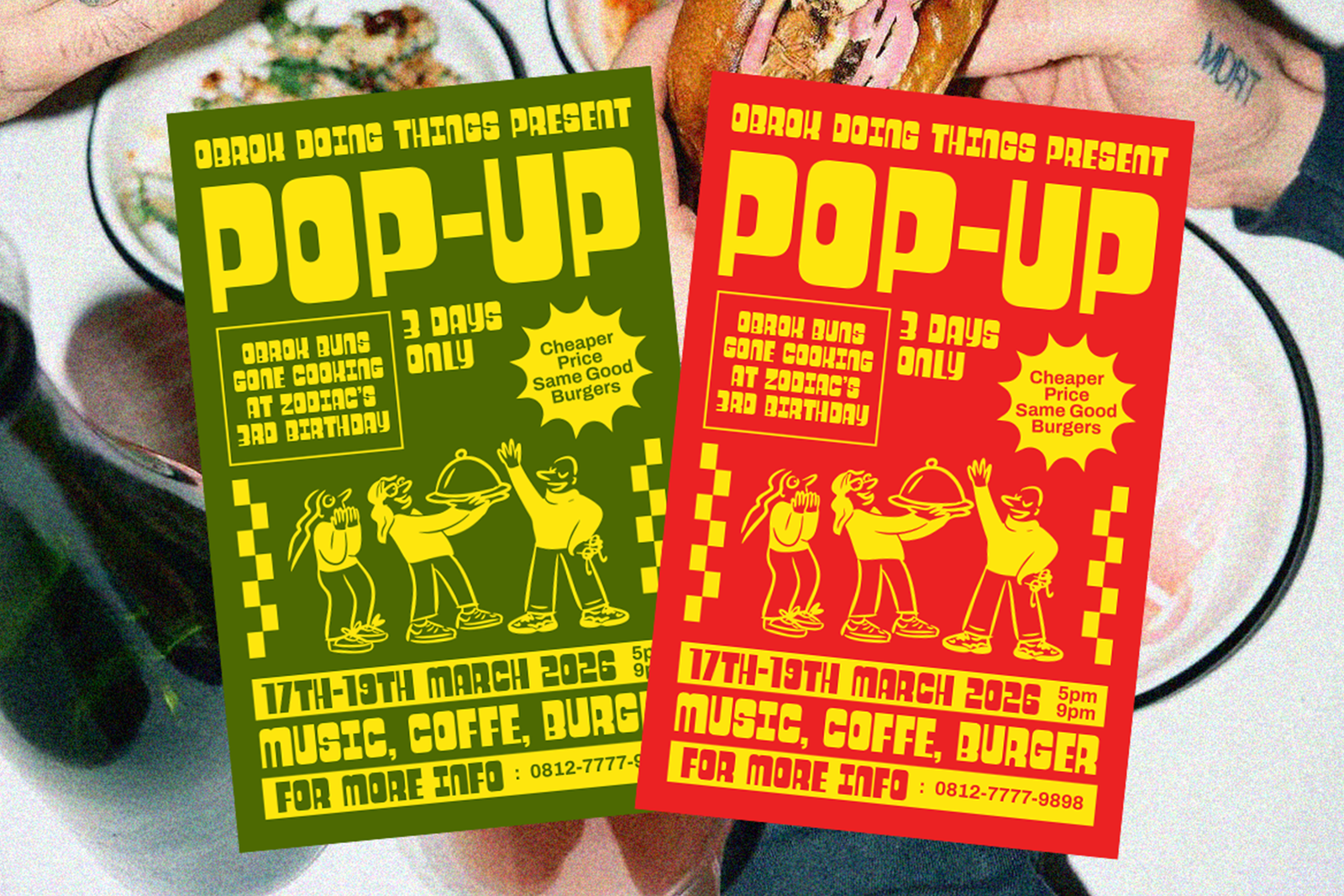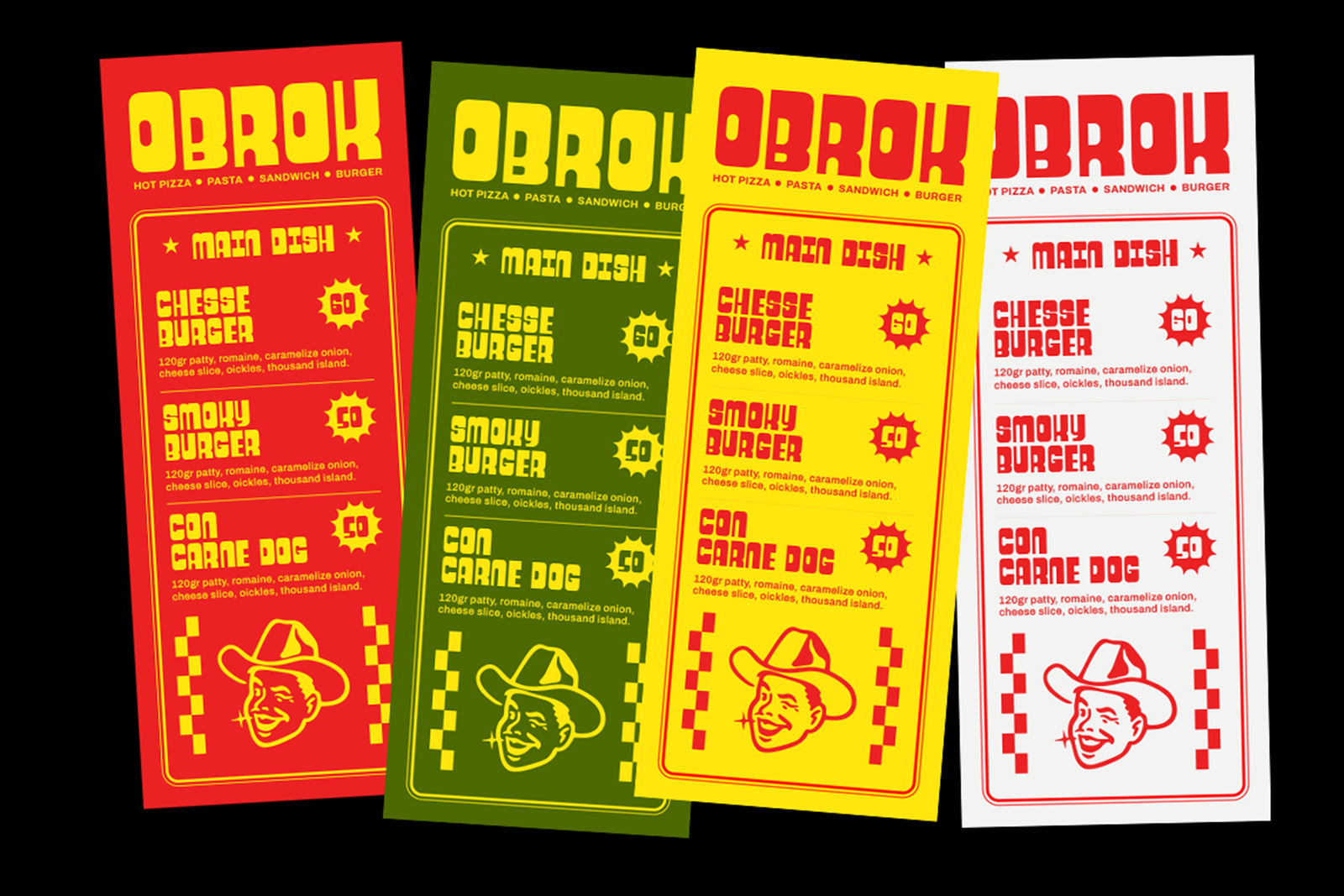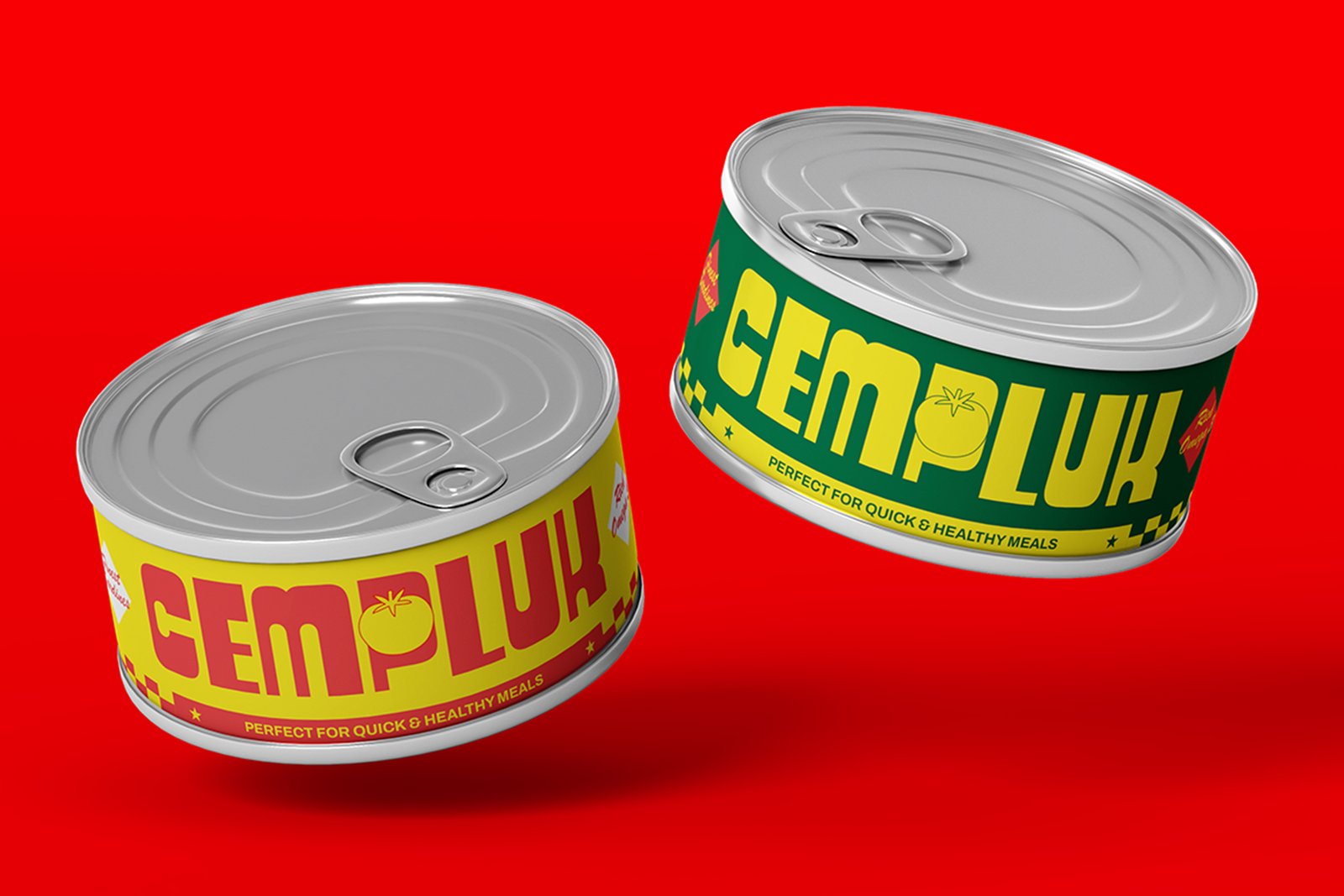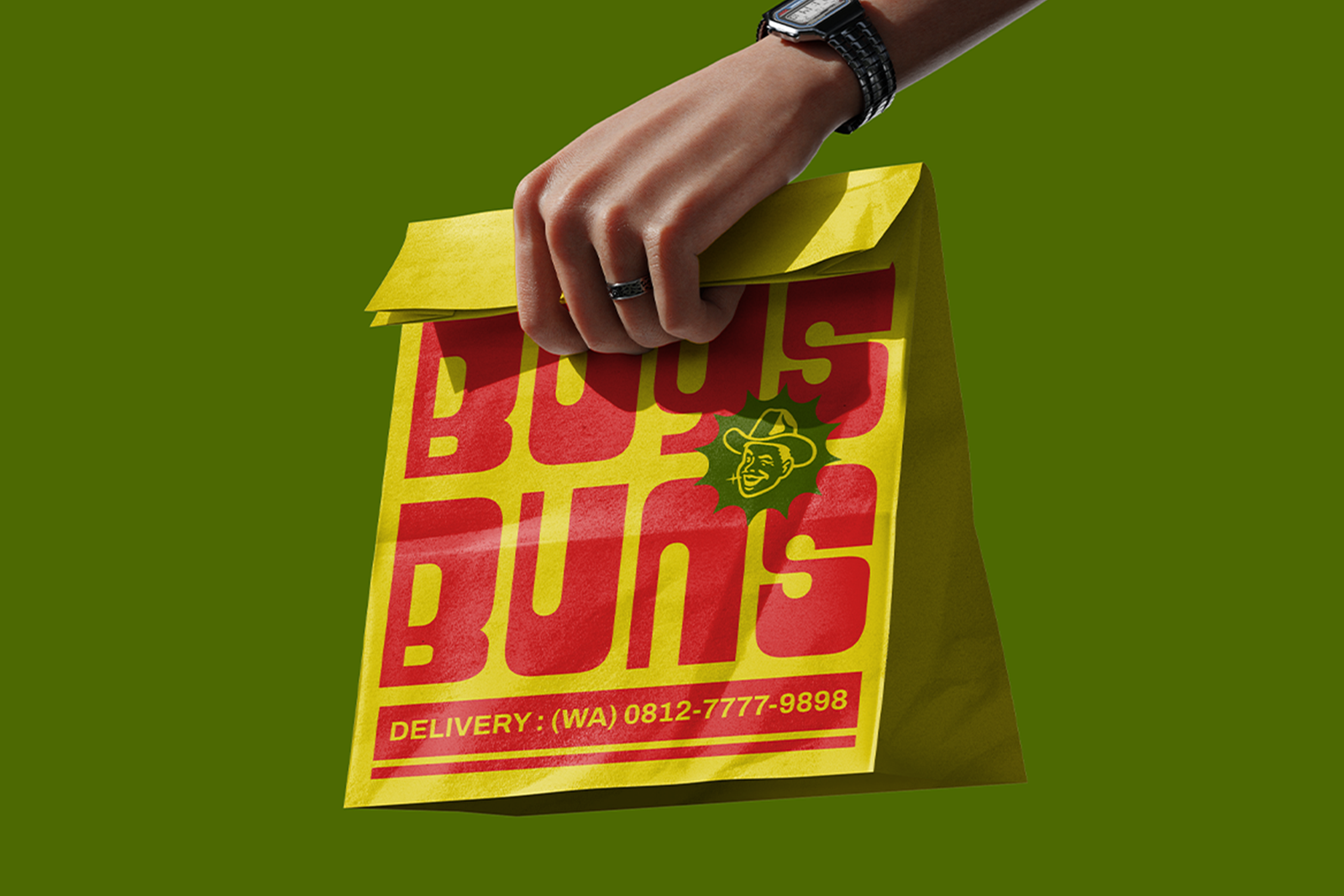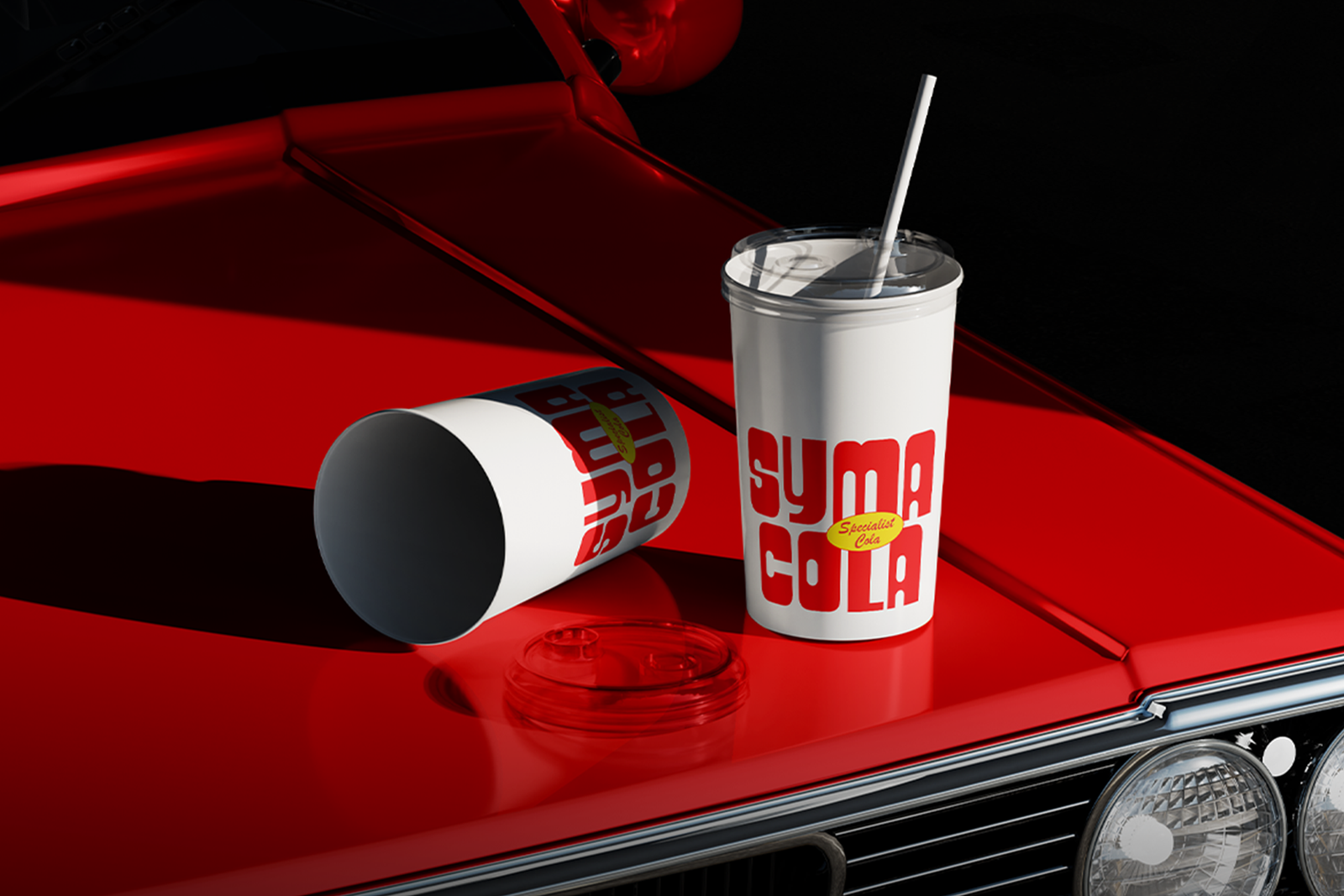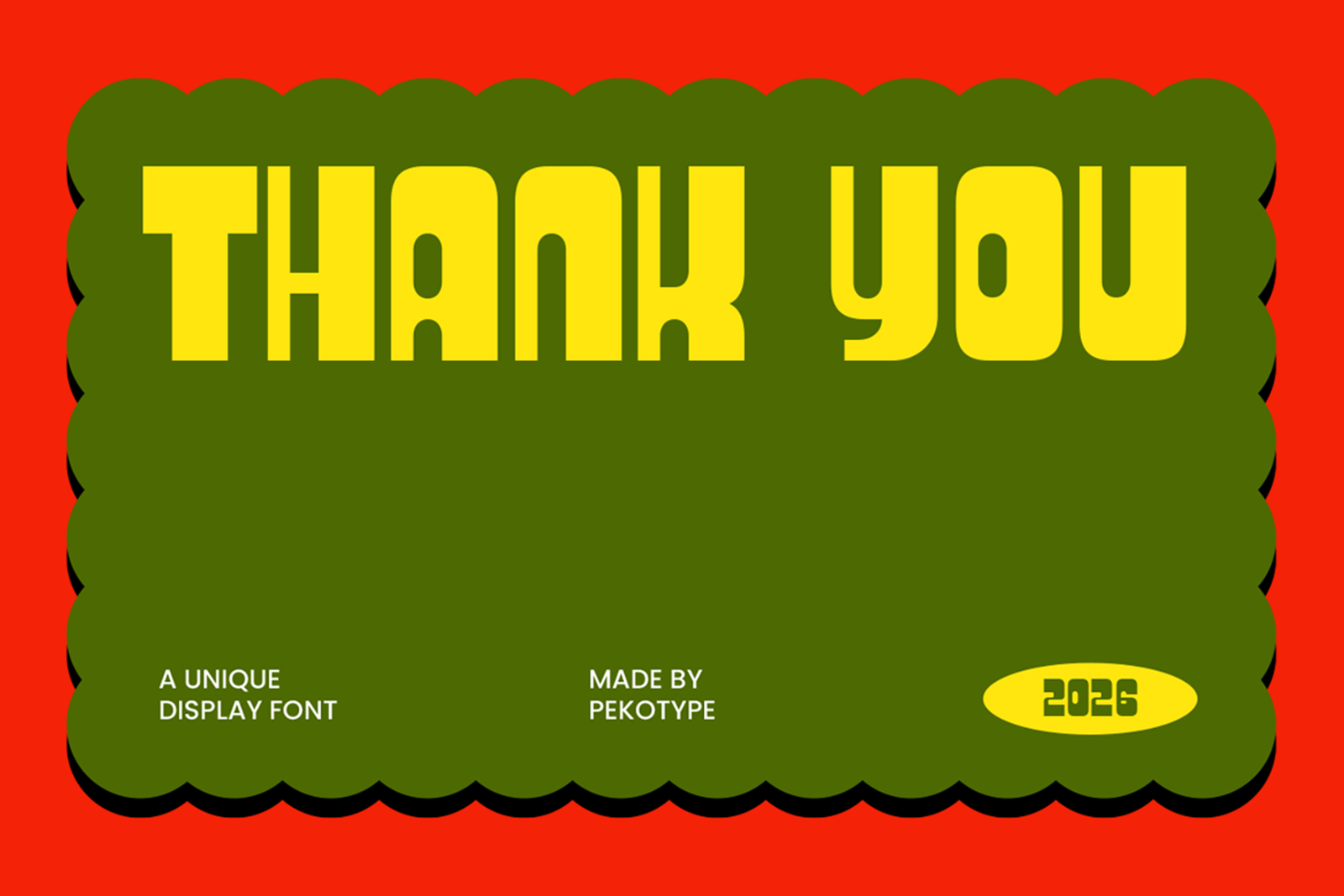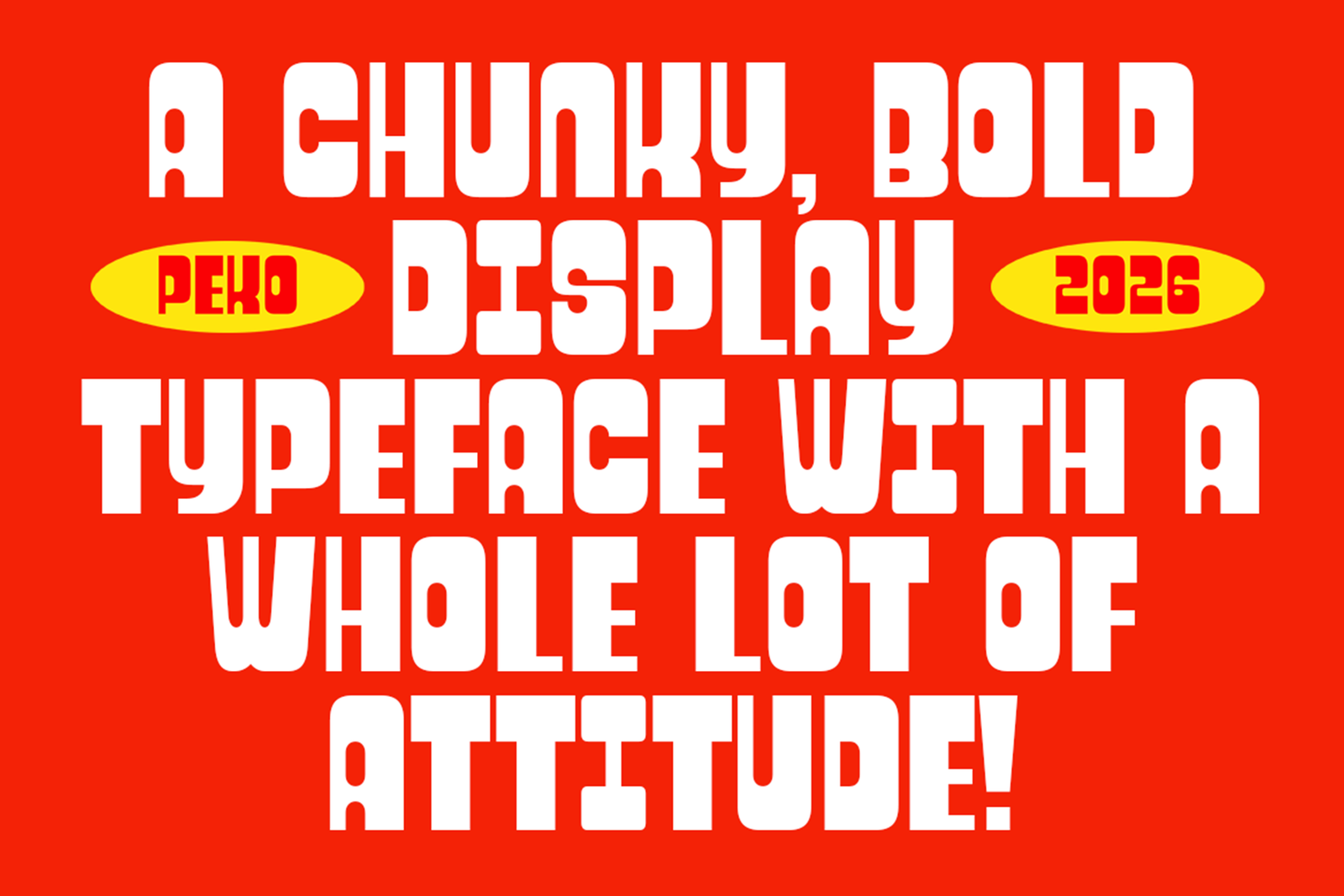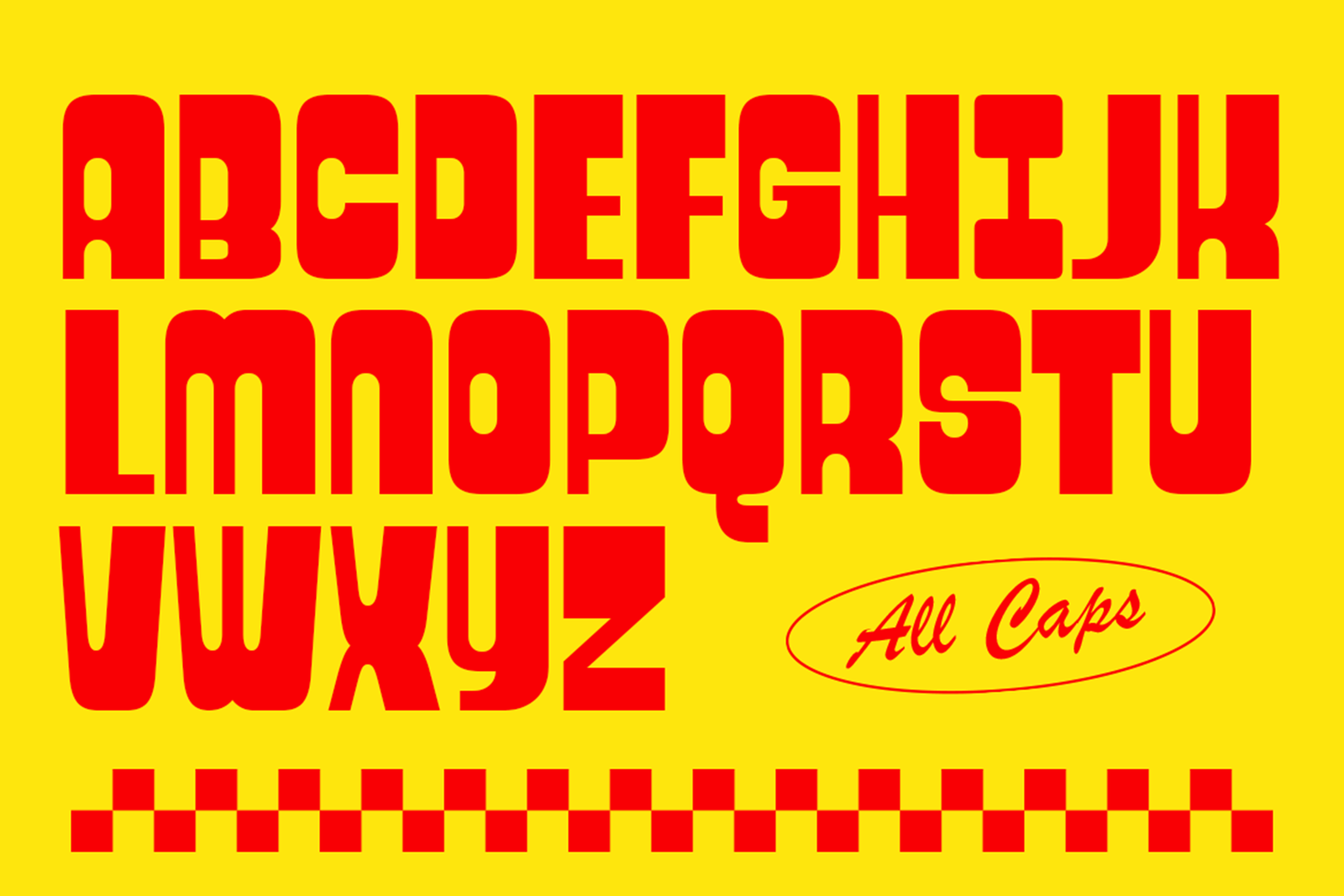
KELPON Font is a chunky retro display typeface with bold vintage-inspired shapes. Perfect for branding, logos, packaging, posters, and food design projects.
KELPON Font is a chunky retro display typeface designed to bring a bold, playful, and nostalgic personality to modern creative projects. Featuring thick letterforms, compact shapes, and unique vintage-inspired details, this font creates a strong visual impact while maintaining a fun and approachable appearance. The solid structure and distinctive style make this font perfect for designs that need a confident and memorable headline.
This versatile font works beautifully for branding, logos, posters, packaging, food labels, merchandise, social media graphics, and promotional materials. It is especially suitable for restaurants, cafés, beverage brands, street food businesses, retro-inspired products, and creative campaigns. Whether you are designing a bold logo, menu design, product packaging, event poster, or eye-catching advertisement, this font helps your project stand out with a unique retro character.
With uppercase and lowercase characters, numbers, symbols, punctuation, and multilingual support, this typeface provides flexibility for various design applications. KELPON Font combines vintage charm with modern readability, making it a great choice for designers who want to create energetic, fun, and distinctive visuals. Add this font to your collection and give your designs a bold retro feeling that feels fresh, creative, and unforgettable across digital and print media.